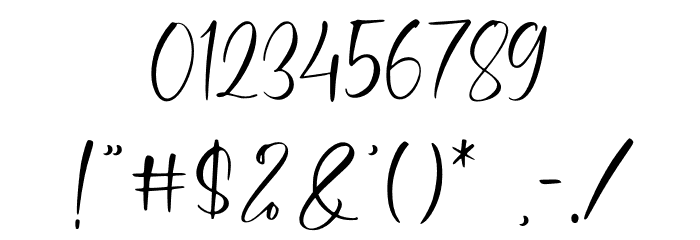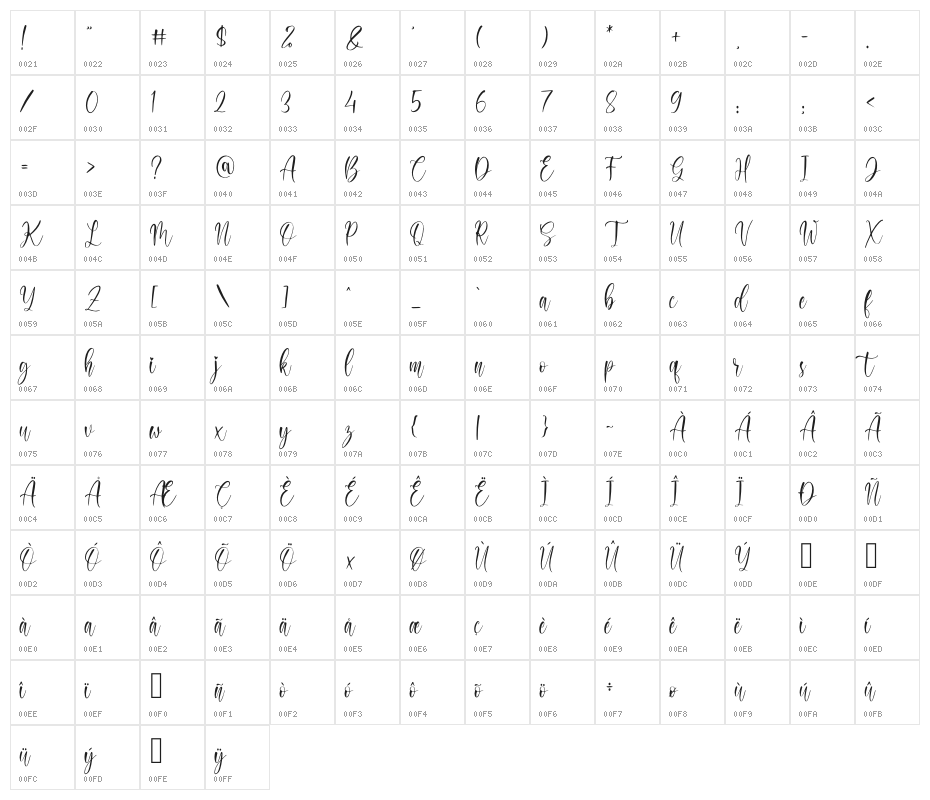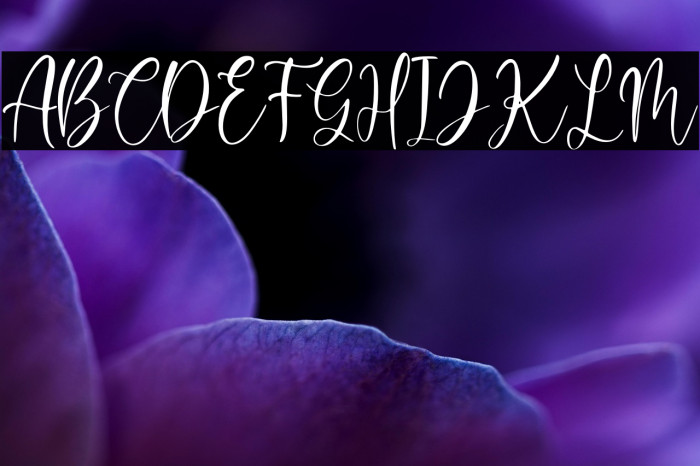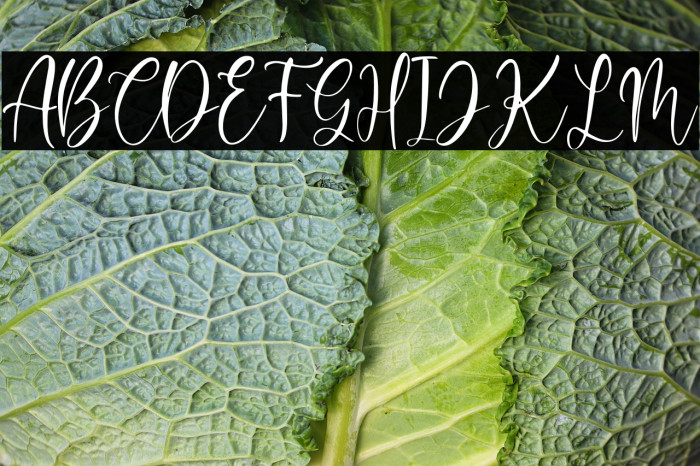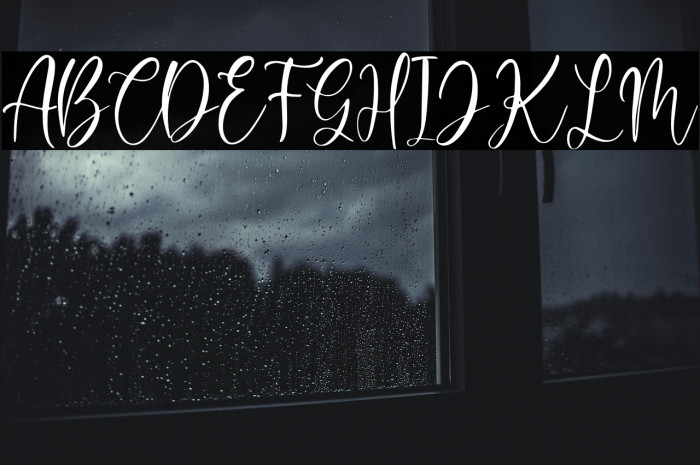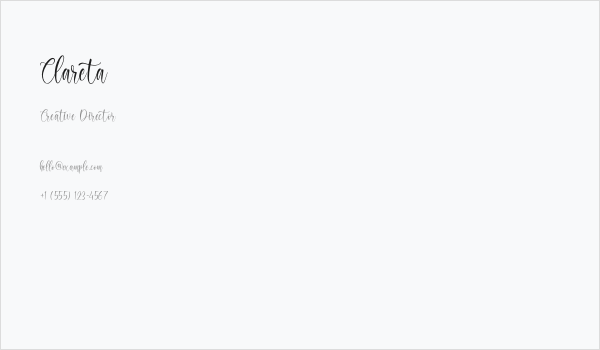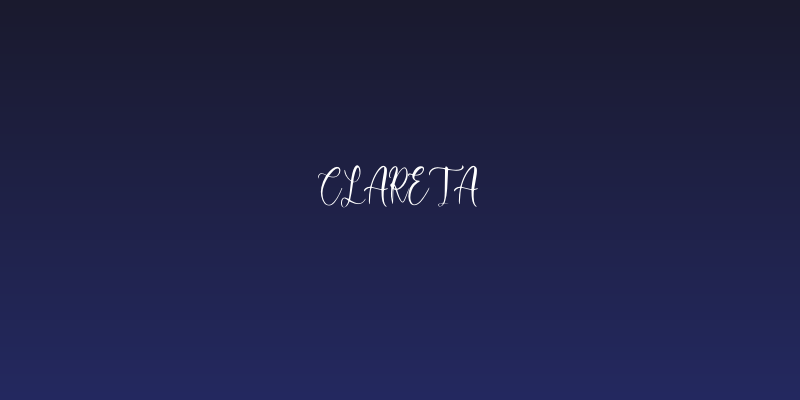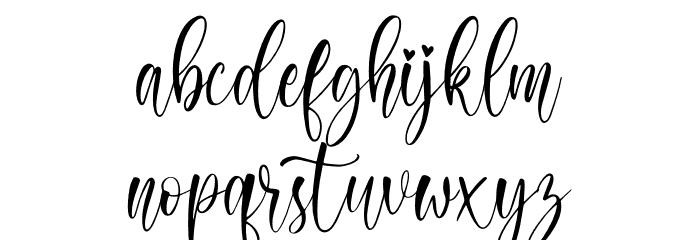
Clareta Font
Clareta Description
This elegant script font features a flowing, cursive style with a modern twist. The characters are interconnected, creating a seamless and fluid appearance. The uppercase letters are tall and graceful, while the lowercase letters maintain a consistent rhythm and balance. The numerals are stylish and complement the overall aesthetic. Special characters are designed with the same attention to detail, enhancing the font's versatility. This font exudes sophistication and charm, making it ideal for projects that require a personal touch.